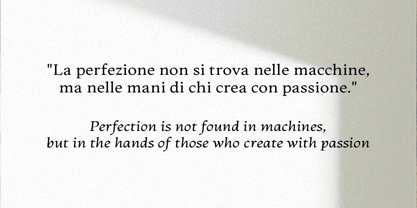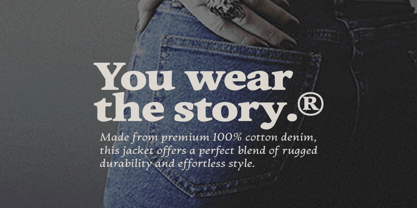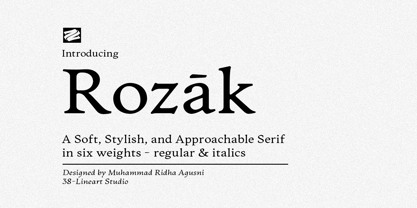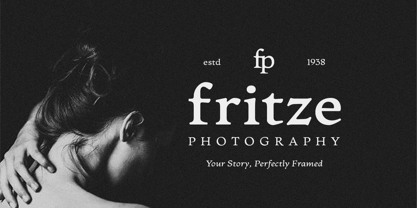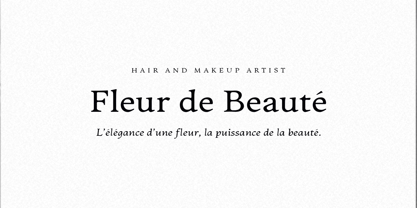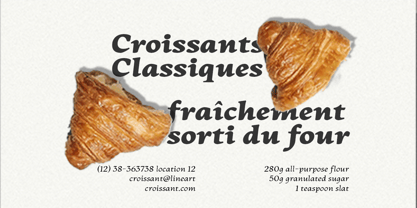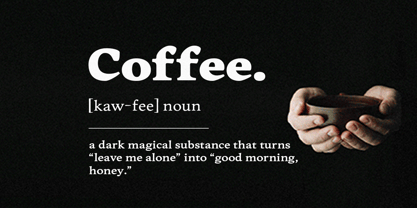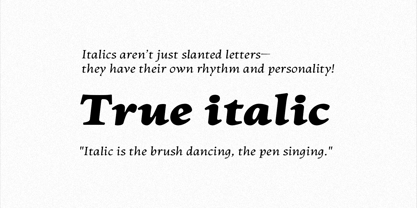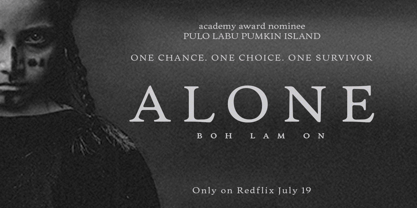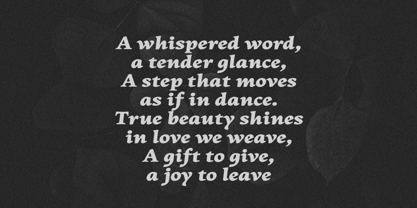
Rozak
The Rozak Font Family was designed by Muhammad Ridha Agusni and published by 38-lineart. Rozak contains 12 styles and family package options. More about this family
Rozak is a soft, stylish, and approachable serif font that balances elegance and warmth, making it ideal for sophisticated branding and editorial work. Featuring six weights; Regular, Medium, Semibold, Bold, Extrabold, and Black - a long with true italics that bring rhythm and personality, Rozak offers refined letterforms that enhance readability and visual appeal. Designed for versatility, its delicate curves and expressive italics make it perfect for high-end design projects, from branding to publishing, ensuring a timeless and polished aesthetic.
Rozak
38-Lineart Studios is an Indonesian-based type foundry owned and managed by Muhammad Ridha Agusni. What began in 2018 as a hobby, inspired by his background in architecture, has grown into a dedicated pursuit of font creation. Muhammad brings his architectural precision to type design, shaping each letter with care and purpose.Working from his home, Muhammad's design process is grounded in simplicity and focus. In the comfort of his familiar surroundings, he applies his skills to create fonts, appreciating the straightforward pleasures that come with his work.